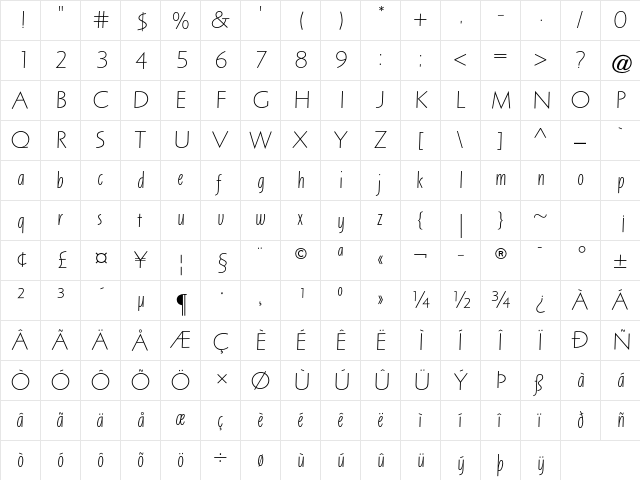
Arta Std Light Italic
| Foundry | International Typeface Corporation |
| Designer | David Quay |
Design Context for Arta Std Typeface
Arta Std is a composed and adaptable typeface that performs quietly and consistently across a wide range of design contexts. The dynamic lean of this cut emphasises speed and emphasis in any layout. Its slender proportions lend an understated elegance to any composition.
Pro Tip: Try Arta Std for annotation and caption copy alongside an upright companion — the contrast in angle creates a dynamic but ordered typographic system.